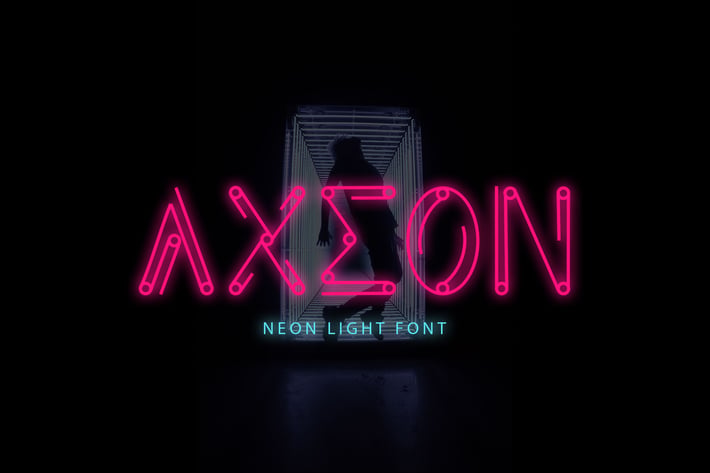
Axeon - Futuristic Line Font
Axeon is a modern futuristic typeface with elegant in every single letter. This font looks modern, sci-fi,
futuristic, future, readable, stylish, catchy and easy to use.
Axeon Font is the best choice for your professional design projects, including: logo, poster design,
t-shirt, headline, flyer, cd cover album, quotes, business card, branding, magazines, social media, advertisements,
product designs, or something that need modern or futuristic looks.
- The perfect font choice for powerful projects - watermarks, signatures, photography, logos, business cards, quotes,
album covers.